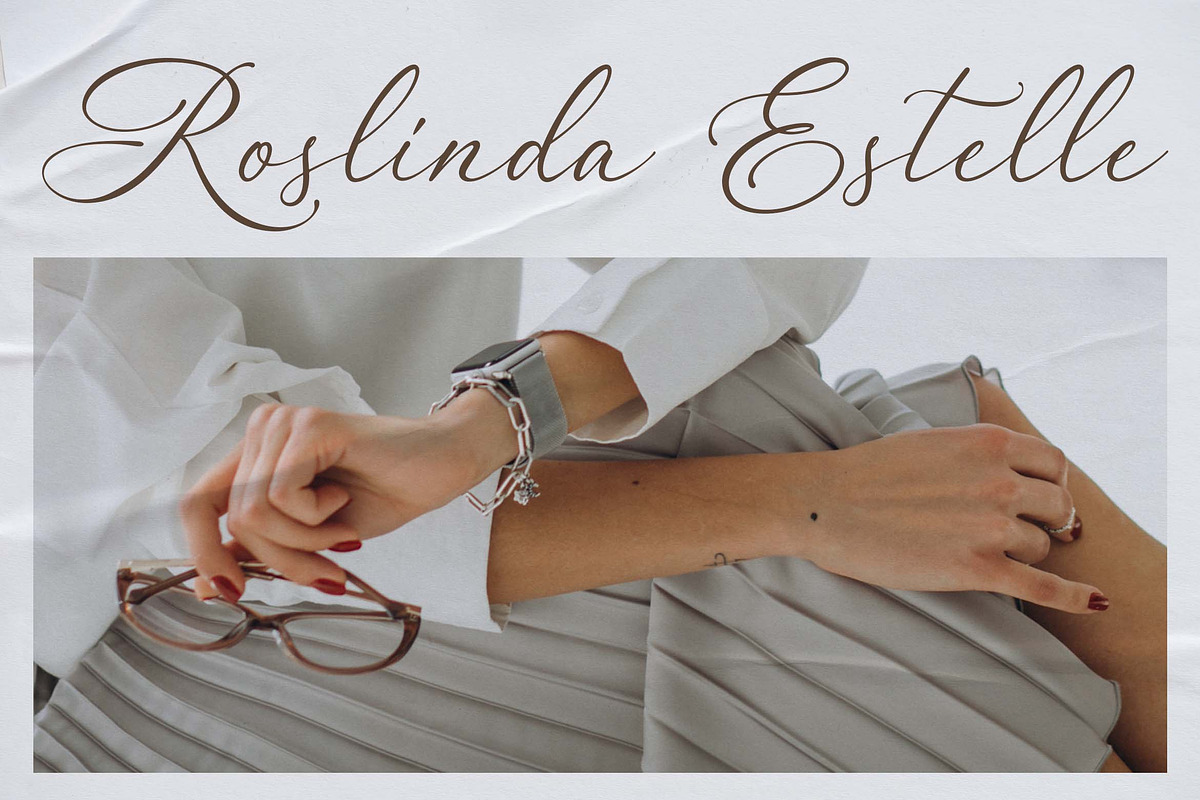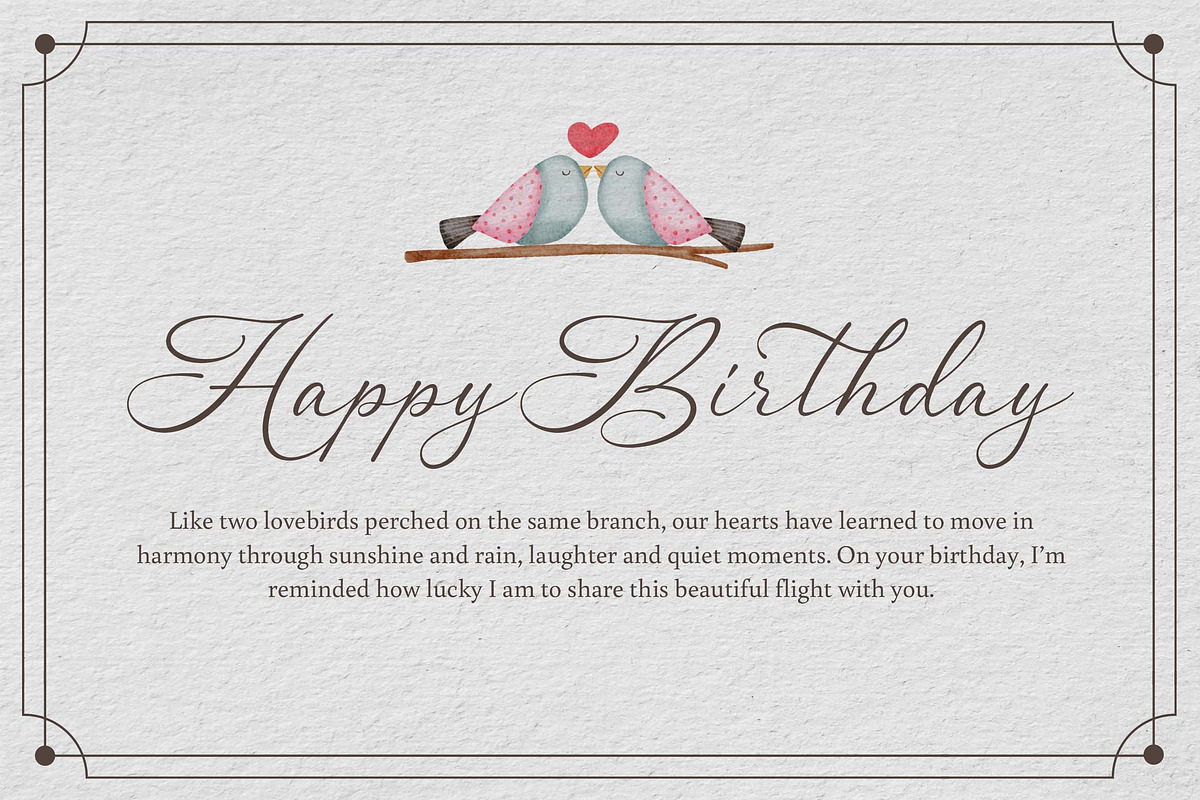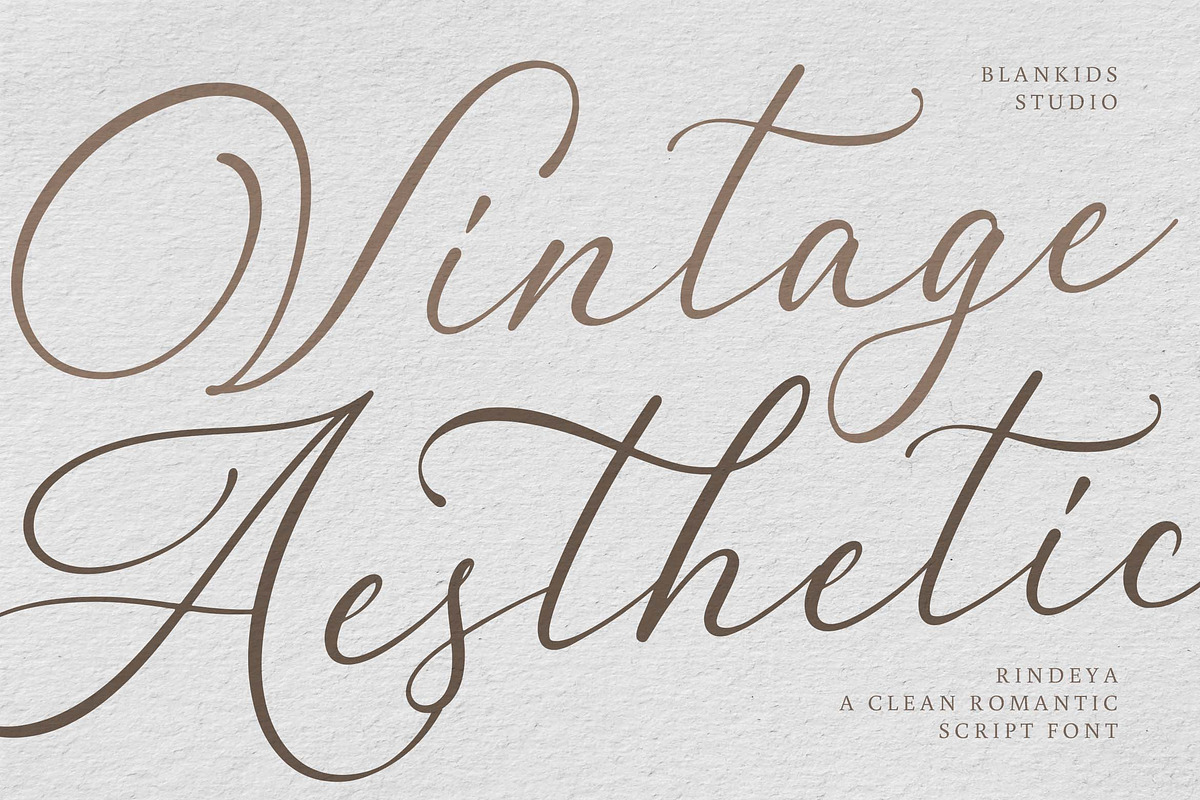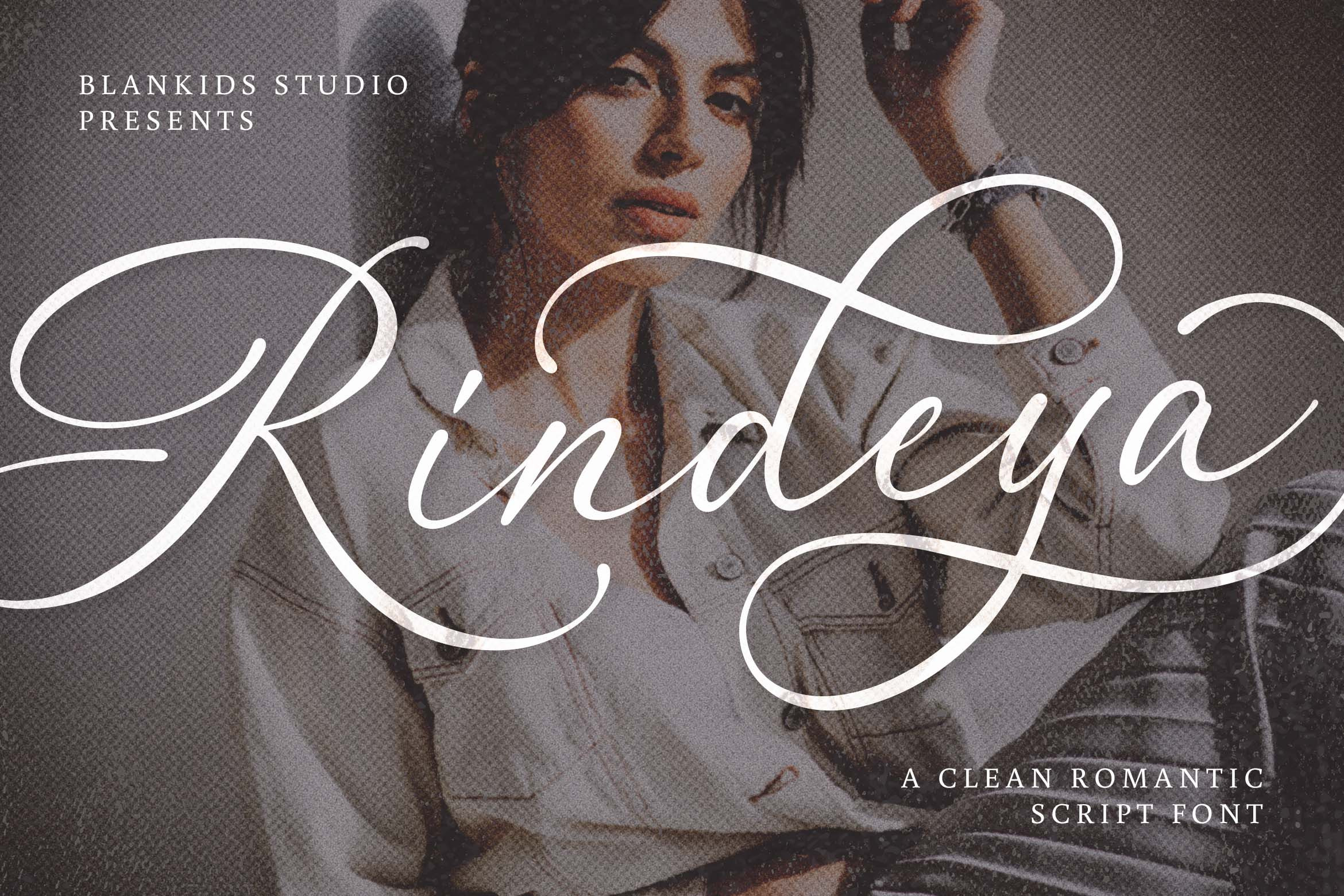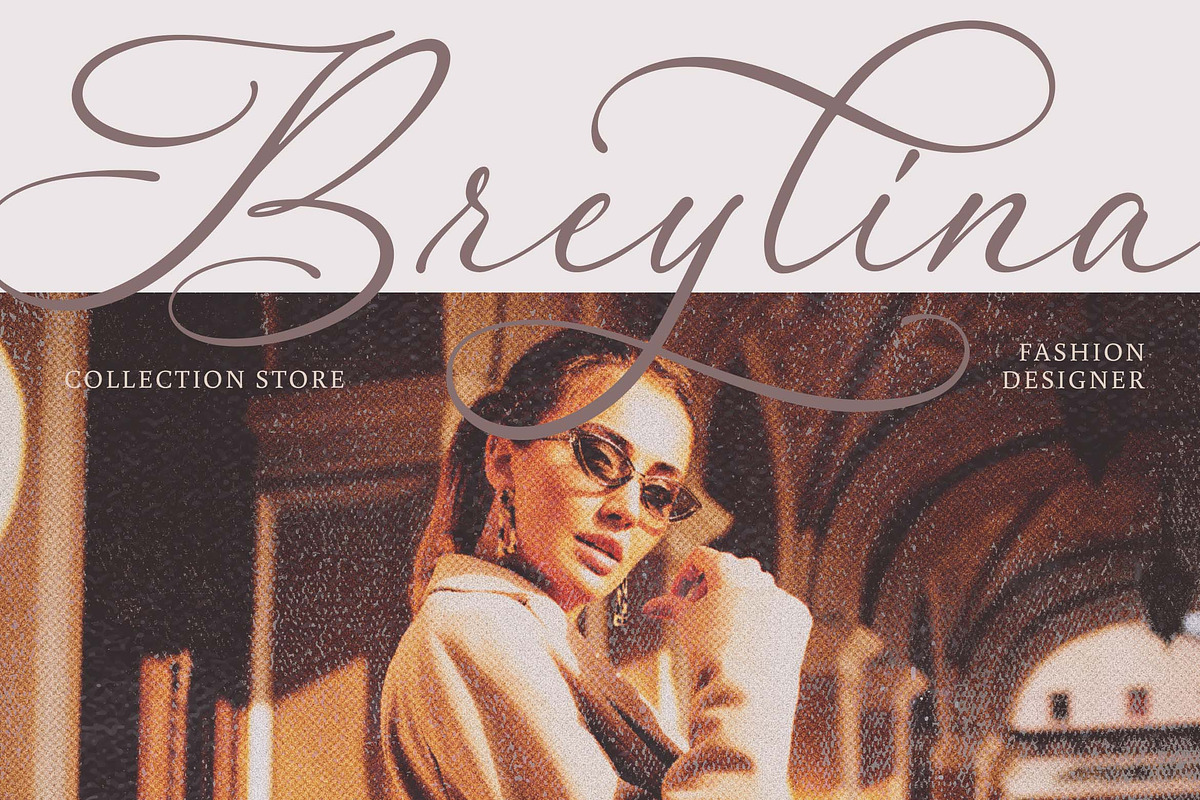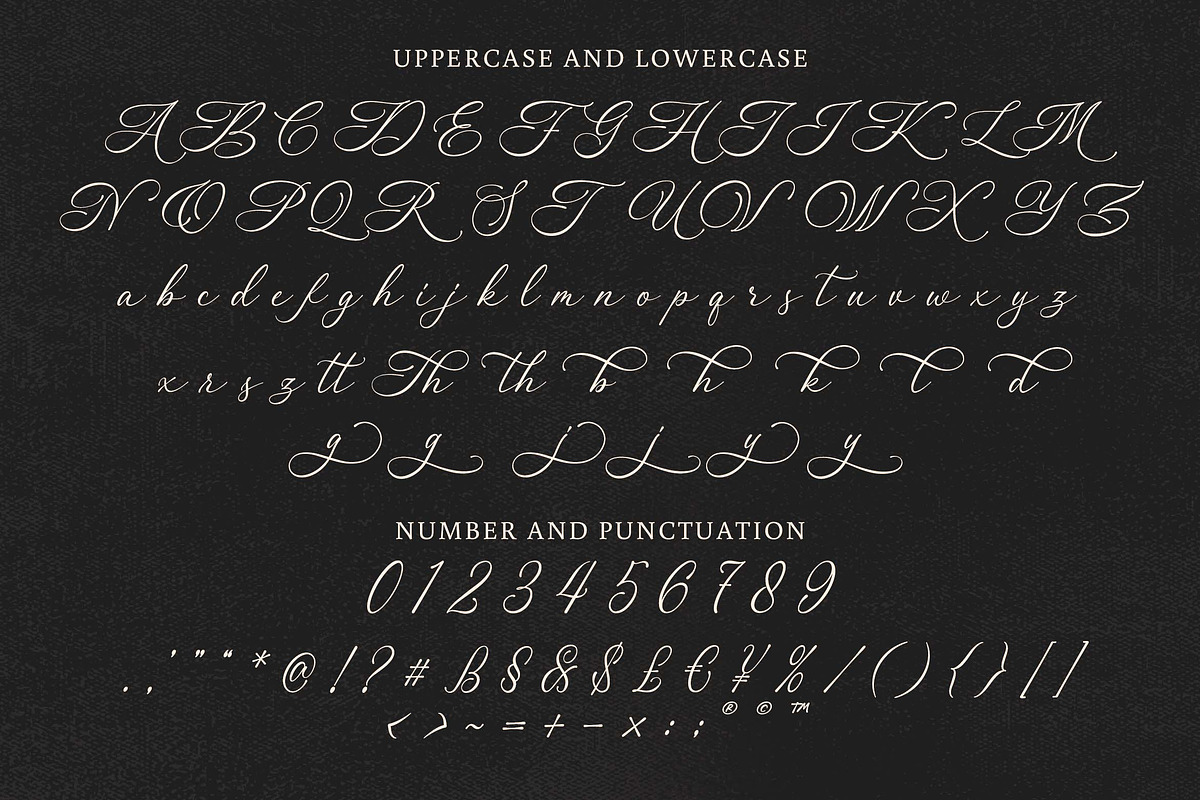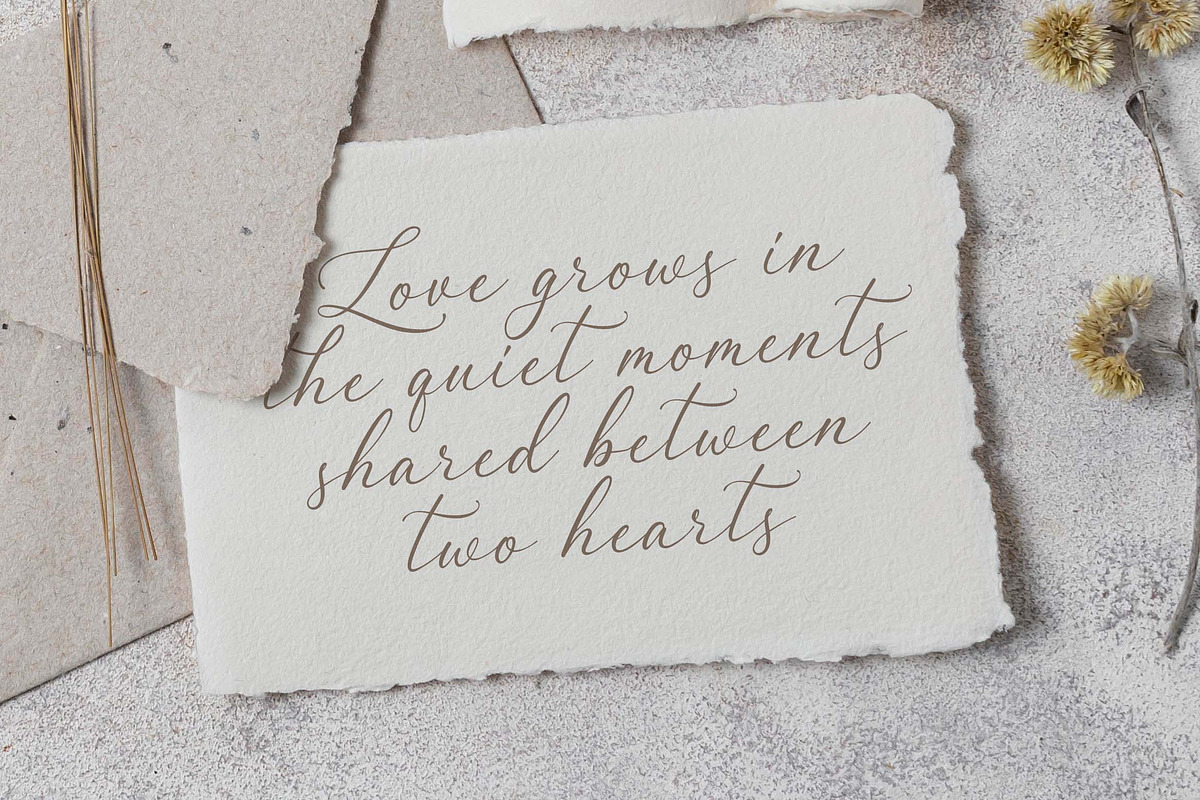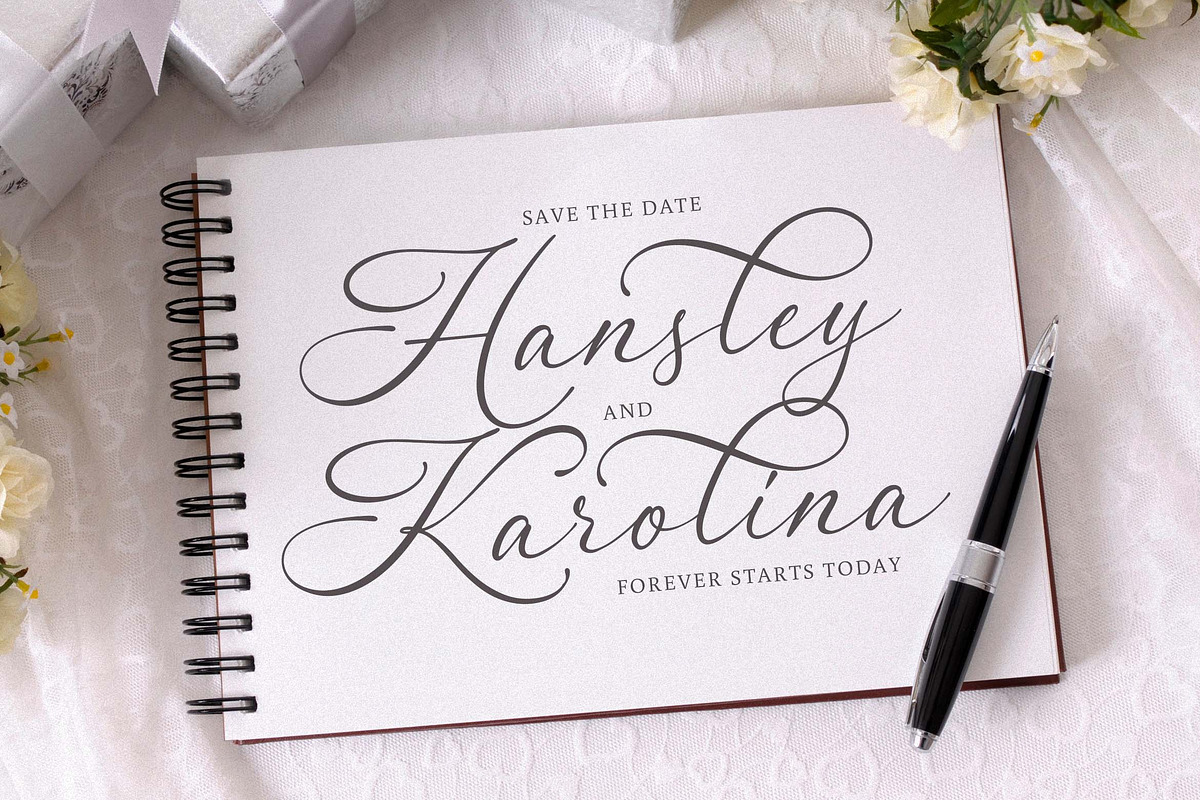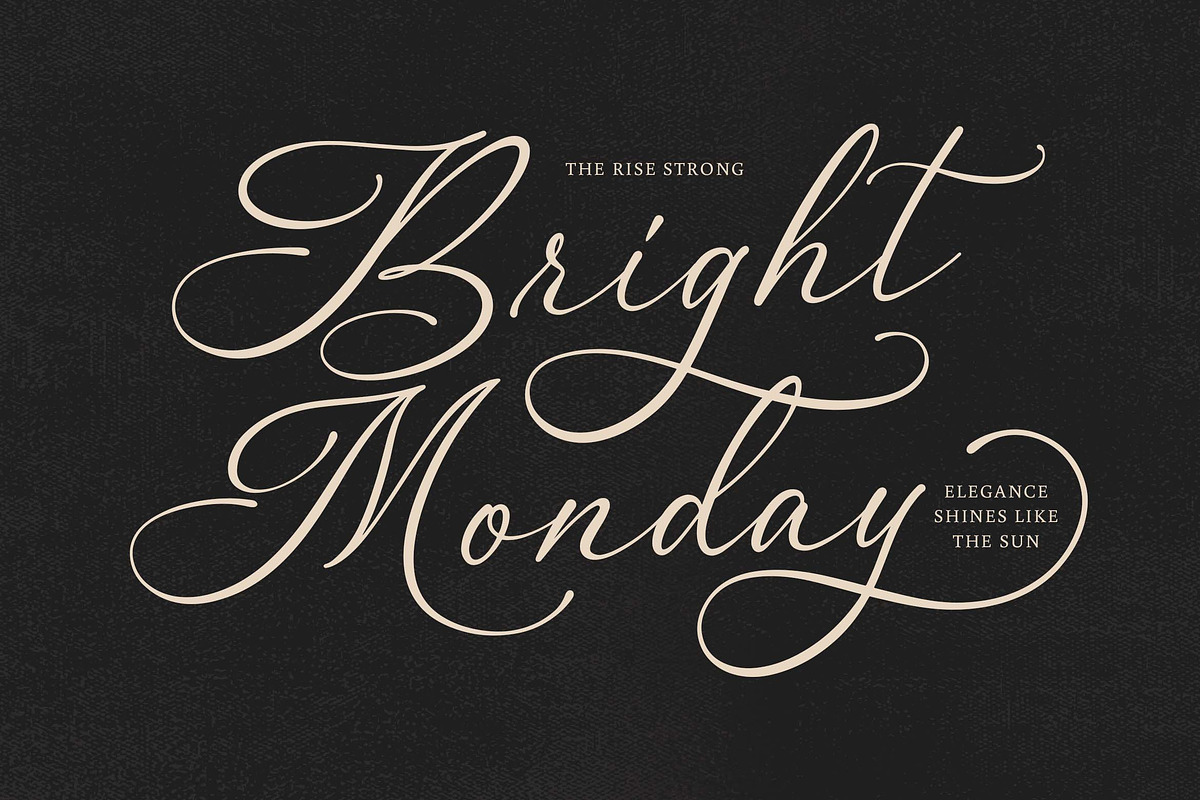
Rindeya a Clean Romantic Script Font
Rindeya – A Clean Romantic Script Font
Rindeya is a graceful script font that beautifully blends modern minimalism with romantic elegance. Designed with smooth curves and refined strokes, it brings a timeless charm to your creative projects. Perfect for wedding invitations, branding, logo design, greeting cards, and editorial use Rindeya captures the essence of love and sophistication in every letter.
Its clean, flowing style makes it versatile for both feminine and classic themes, while maintaining a touch of luxury and warmth. Let Rindeya elevate your typography with effortless beauty and charm.